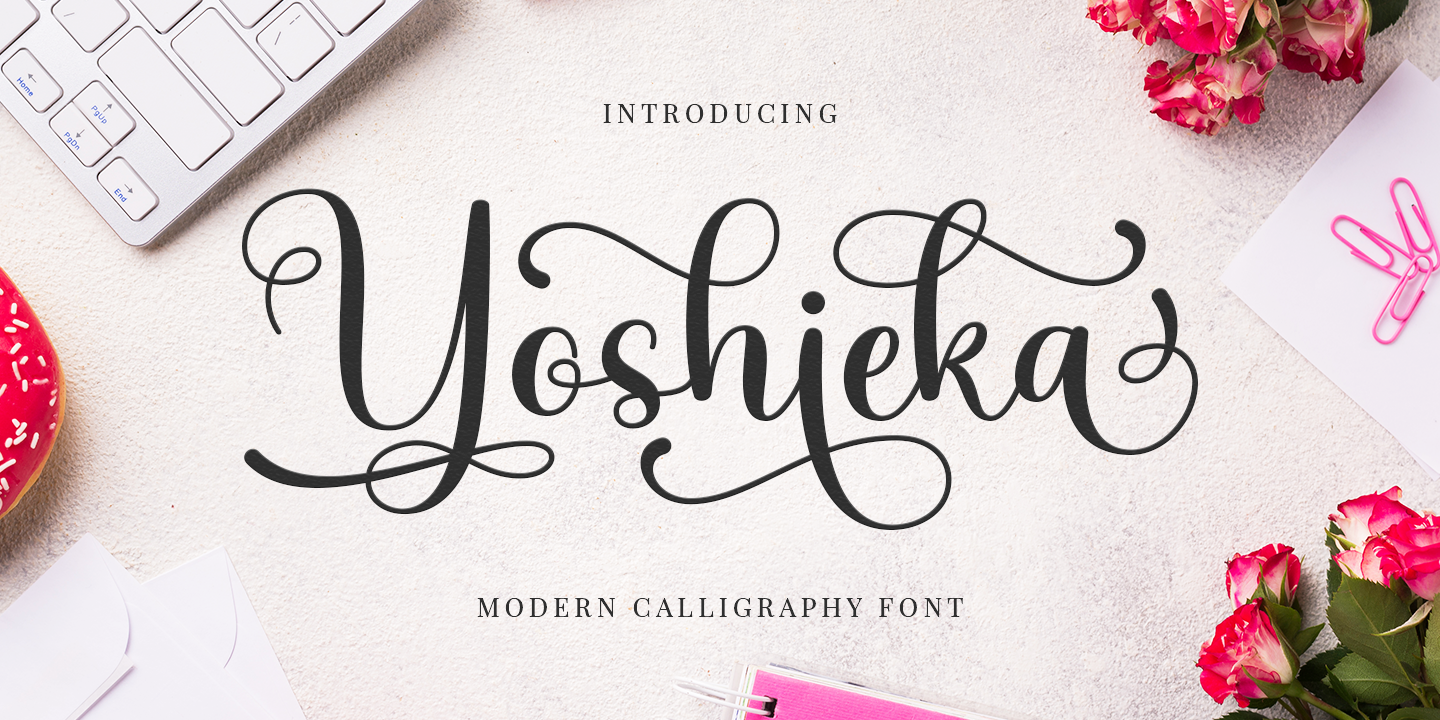
Yoshieka Font Free Download – Elegant Calligraphy Script with Modern Flair
Elevate your designs with the Yoshieka Font Free Download, a stunning contemporary script that blends classic calligraphy elegance with smooth, modern strokes. Perfect for wedding invitations, luxury branding, and feminine designs, this font adds sophistication to any project.
Why Choose Yoshieka Font?
The Yoshieka Font Free Download offers exquisite craftsmanship with:
Fluid, Elegant Strokes – Graceful connections between letters
Modern Calligraphy Style – Balanced between formal and casual
Alternate Characters – Multiple letterforms for custom word styling
Wedding & event stationery
Feminine brand identities
Beauty product packaging
Fashion editorials
Personalized gifts
Key Features
Full Upper & Lowercase Set – Complete alphabet for versatility
Ligatures & Swashes – Beautiful letter combinations
Design Applications
Romantic wedding invitation suites
Elegant cosmetic brand logos
Sophisticated social media quotes
Luxury boutique packaging
Pro Tip: Pair with delicate serif fonts for contrast, or add gold foil effects for extra luxury.
Designer Note: Best used at medium-large sizes (24pt+) to showcase its beautiful details.